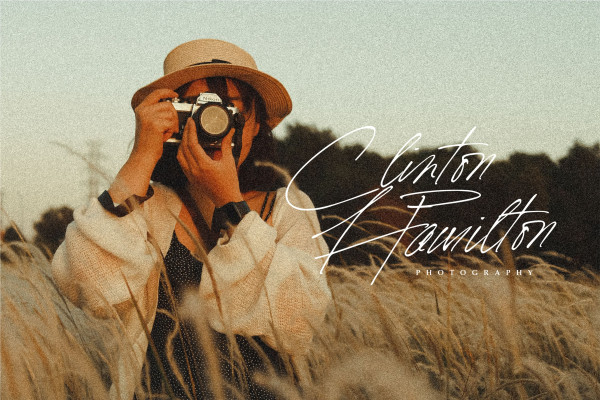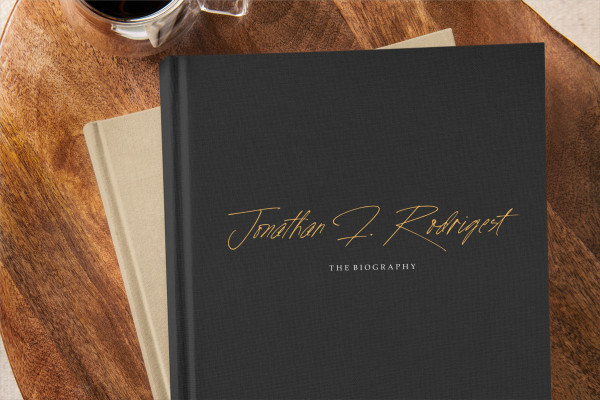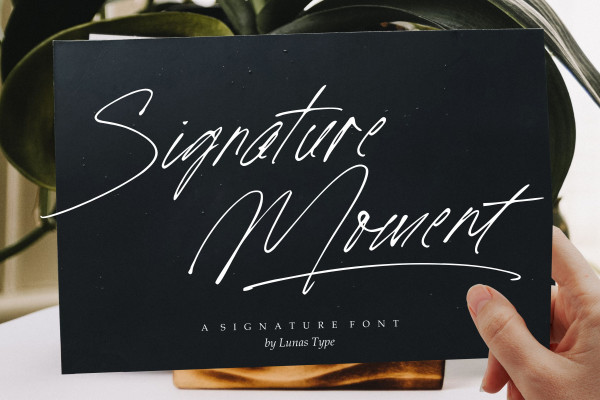
Signature Moment Font
Signature Moment Font is a stylish font designed to capture the essence of a personal signature. This font embodies the elegance and grace of a handwritten signature, meticulously crafted using a special fountain pen exclusively reserved for creating distinctive signatures. With its fluid strokes and intricate details, Signature Moment adds a touch of sophistication and individuality to any project or design. Whether used for branding, invitations, logos, or other creative endeavors, this font is perfect for capturing those memorable moments and leaving a lasting impression.